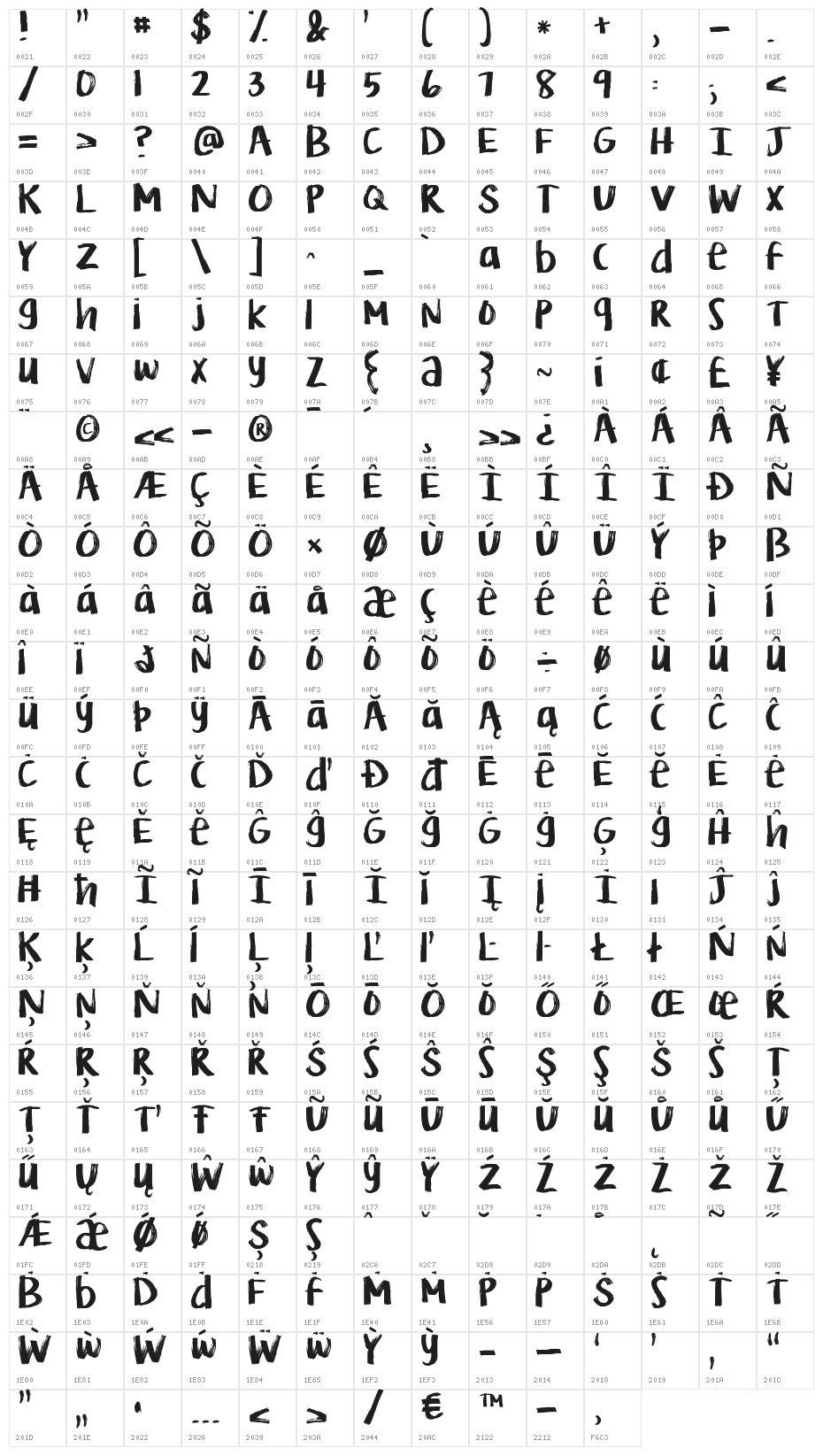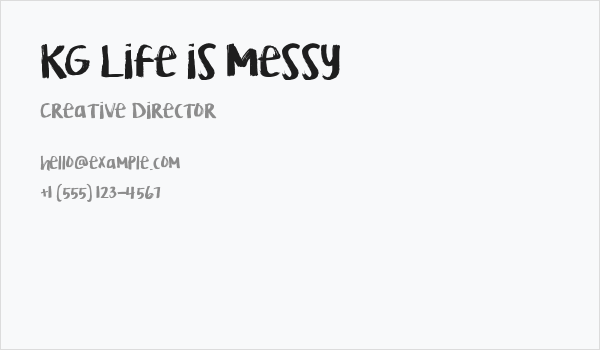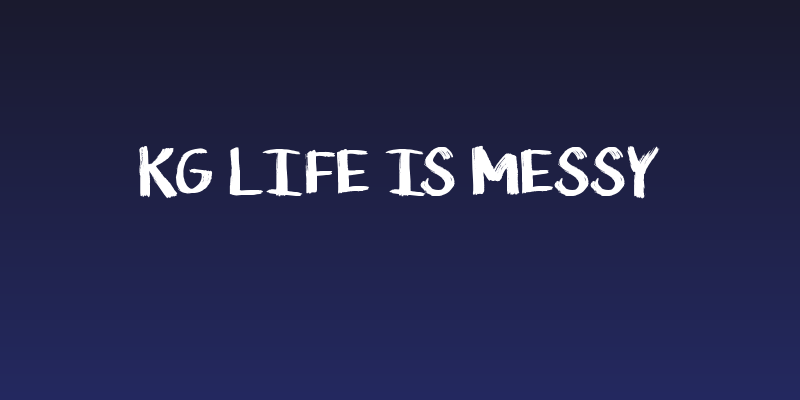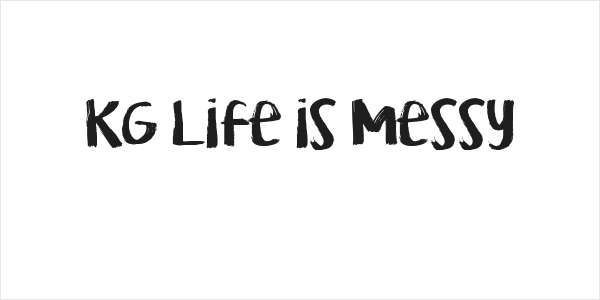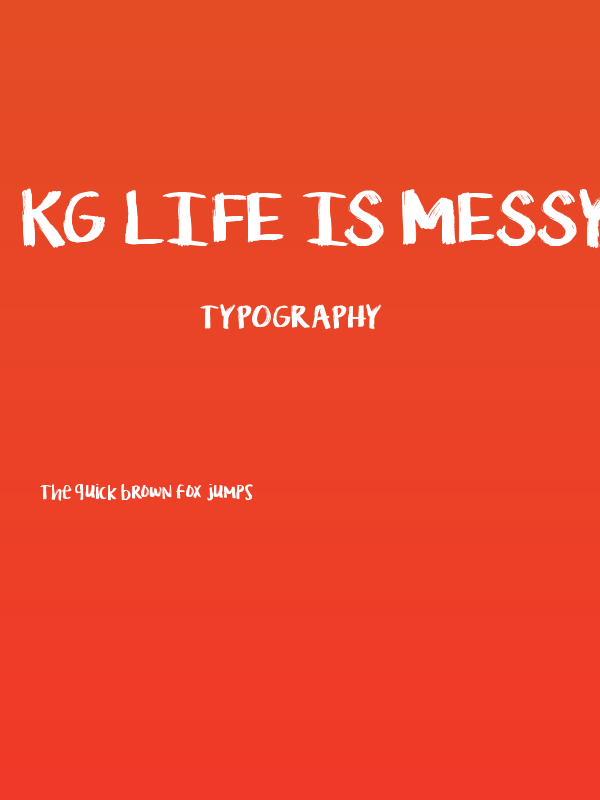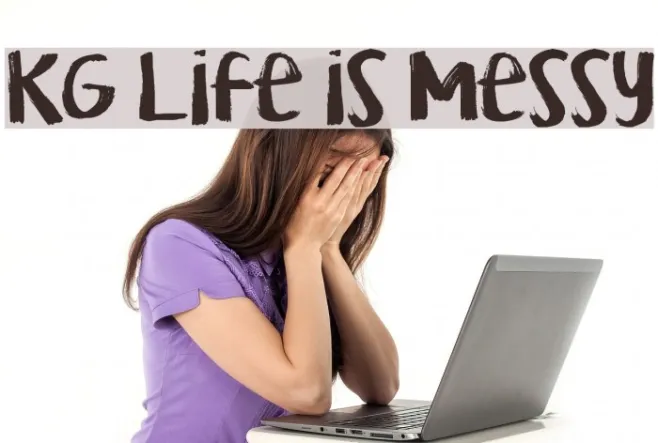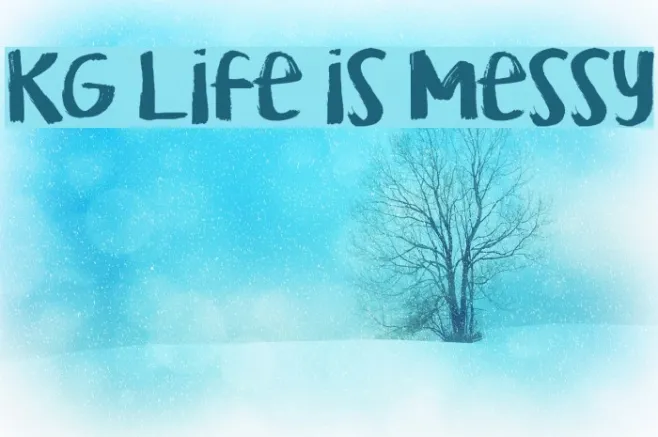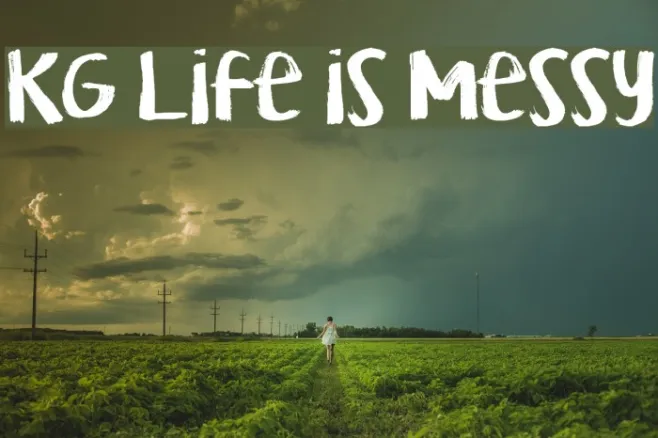
KG Life is Messy Font
KG Life is Messy Description
This font features a bold, expressive style with brush-like strokes that give it a hand-painted appearance. The characters are uneven and dynamic, creating a sense of energy and movement. The uppercase and lowercase letters maintain a consistent style, with varying stroke widths that add to its artistic flair. Numbers and special characters follow the same aesthetic, making the font versatile for creative projects. Its rough edges and irregular shapes contribute to a casual, playful vibe, perfect for designs that aim to capture attention with a unique, handcrafted look.
| Proposed Projects | Ideal for posters, artistic branding, social media graphics, and creative invitations. |